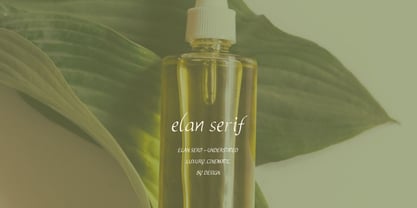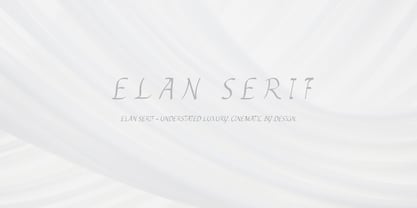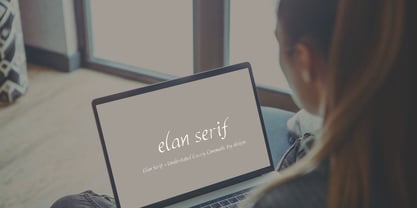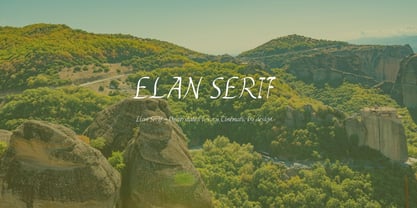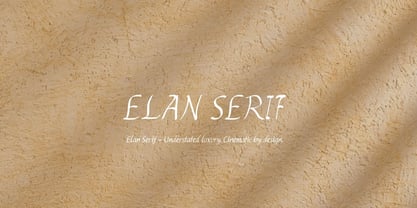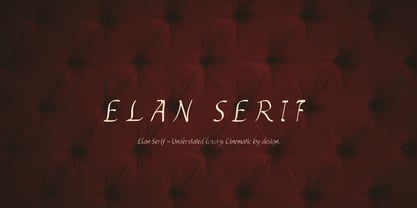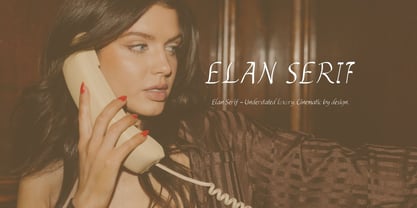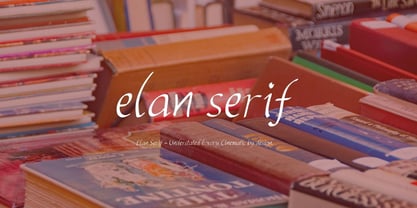
Elan Serif
Die Schriftfamilie Elan Serif wurde von Lesley Nurse entworfen und von LDN Surface & Co. veröffentlicht. Elan Serif enthält 1 Stile. Mehr über diese Familie
The Elan Serif Font by Lesley D. Nurse is a luxurious and versatile typeface crafted for those who appreciate understated elegance and timeless sophistication. Its sleek curves and modern touch deliver high-end refinement, making it the perfect choice for premium branding, upscale publications, executive logos, and refined digital experiences.
Designed to elevate everyday moments with elegance, Elan Serif embodies the essence of classic refinement while seamlessly accommodating sophisticated projects across branding, editorial design, corporate presentations, and luxury hospitality materials.
Elan Serif is more than just a font; it’s a statement of prestige and excellence. Elevate your brand’s presence with the timeless grace of Elan Serif Font.